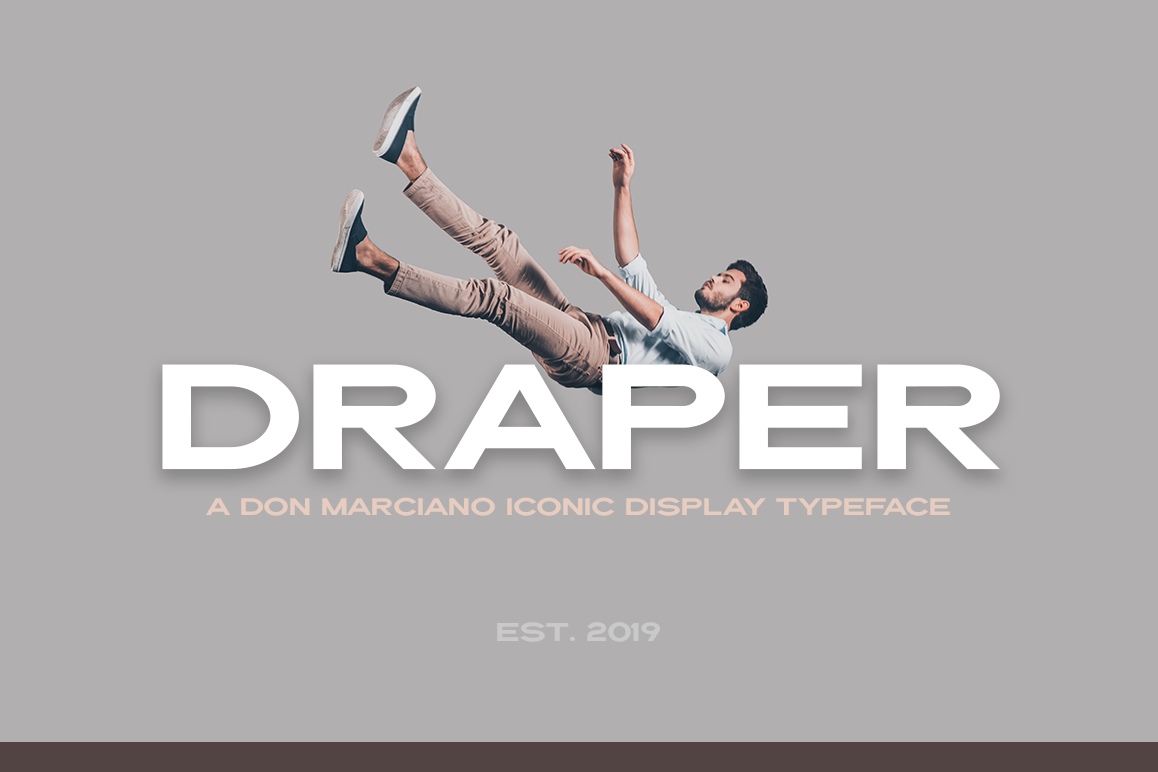
Draper
Draper is a mid-20th century extended style font, designed to emulate the specific look of the New York advertising agencies of the time, ideal for designs that require a distinct look and feel, such as promotional material, prints, invitations, greeting cards, and posters. With slick, clean lines it is unique, bold, confident, and cool.